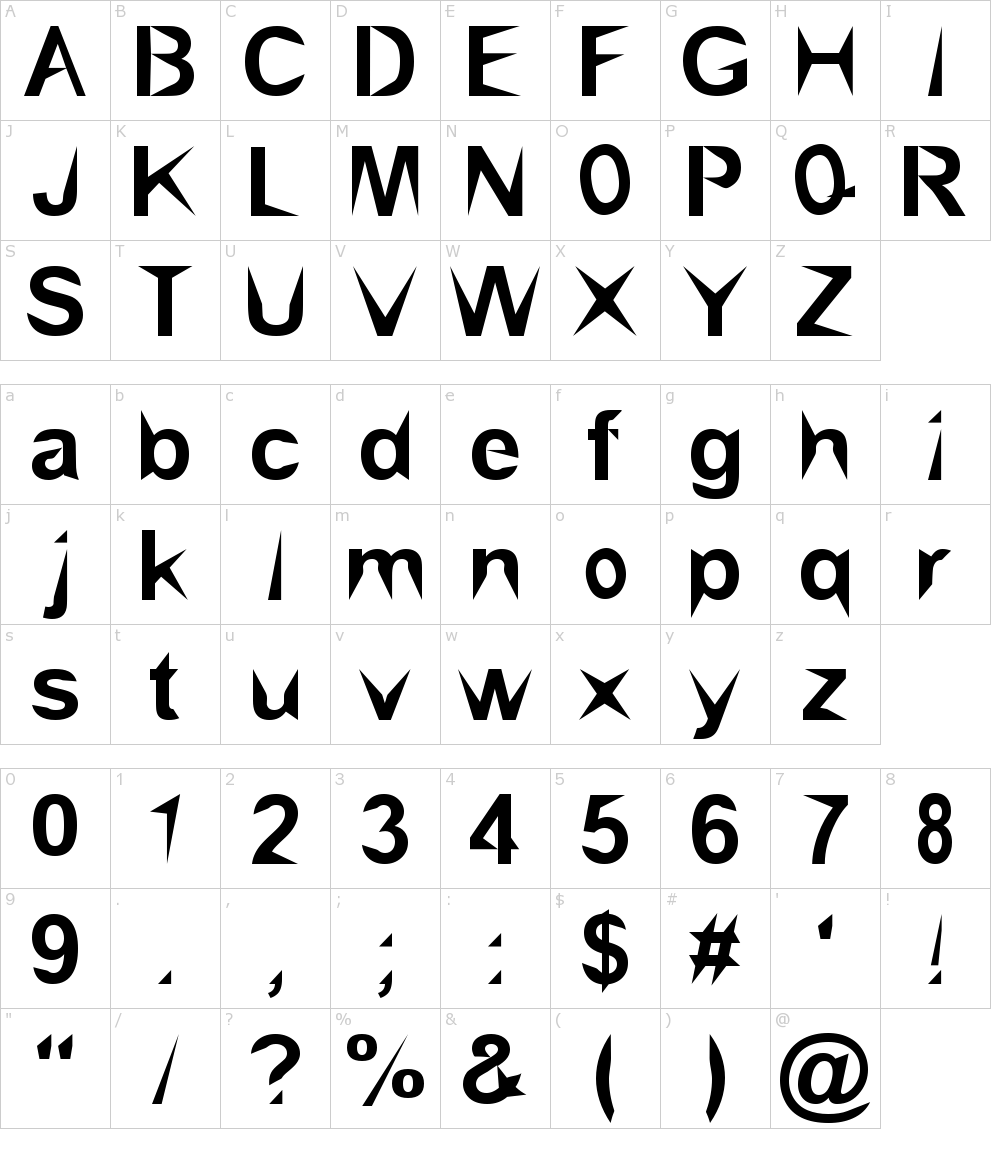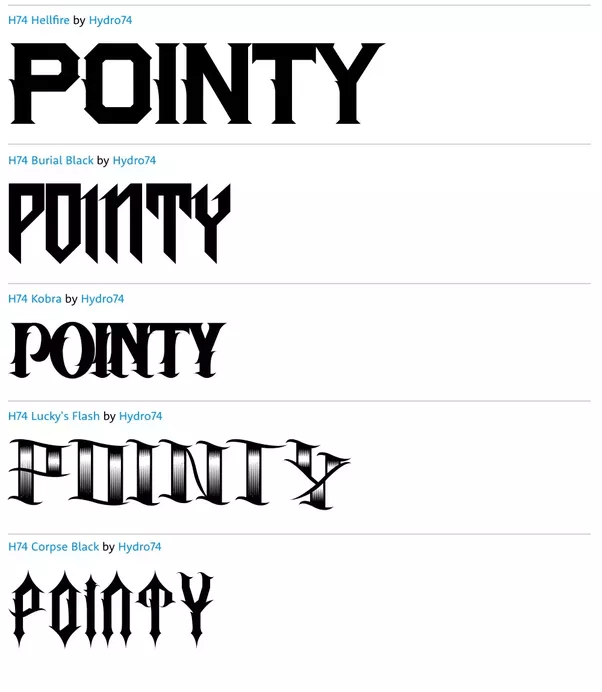
Famous Pointed Fonts References
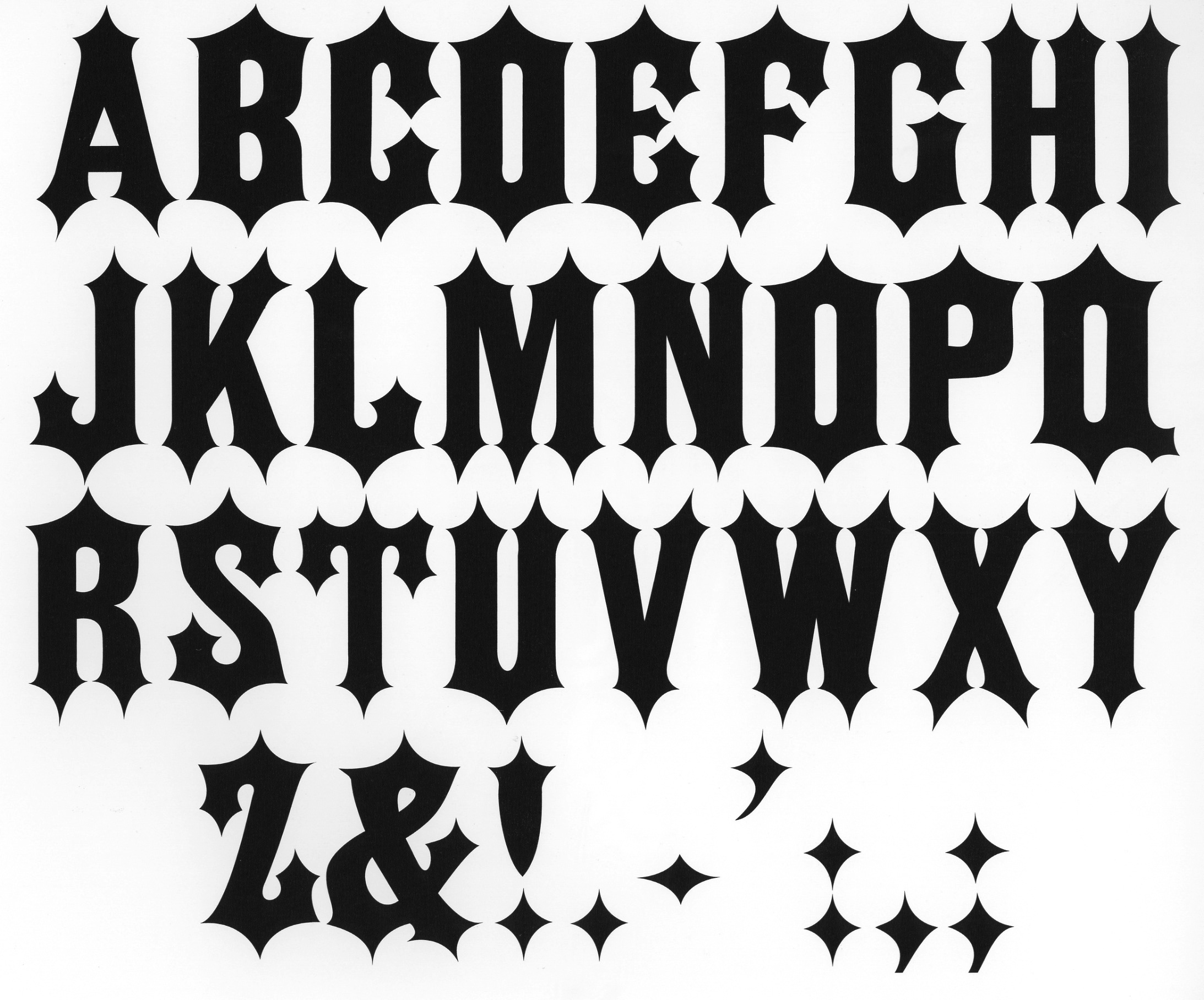
It's Inspired By 1950S Font Styles, And It Offers A Wide Range Of Glyphs, Stylistic Alternates, And Characters From Other Alphabets Like Cyrillic And Greek.
Pointed fonts | fontspring discover fonts licensing free fonts pointed fonts fonts featuring pointed terminals. Font tags all tags free for commercial use basic sans serif slab serif script decorative dingbats non latin pixel style 3d blocky cartoon cute curly futuristic grunge outline. Pointed font viewed 367 times and downloaded 20 times.
Modern urban serif font, powerfull and has a great character, good font to use for covering your project, like branding, headline letter,. This font uploaded 26 march 2013. Detailed information on the brial pointed font: